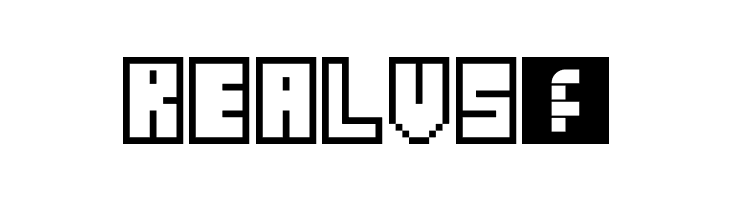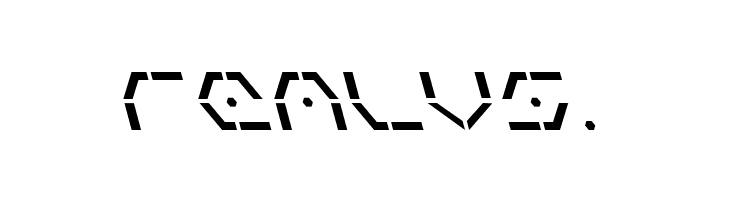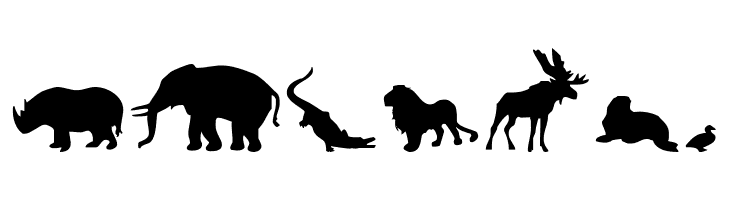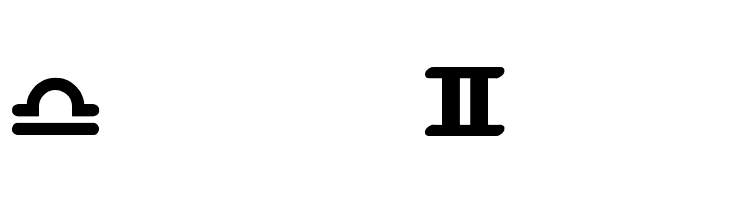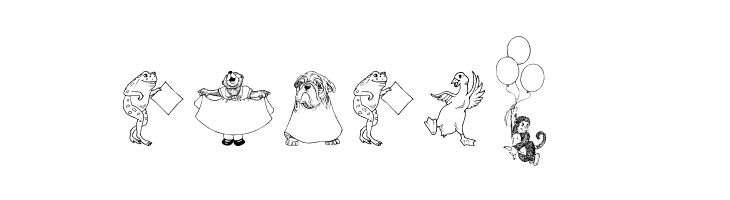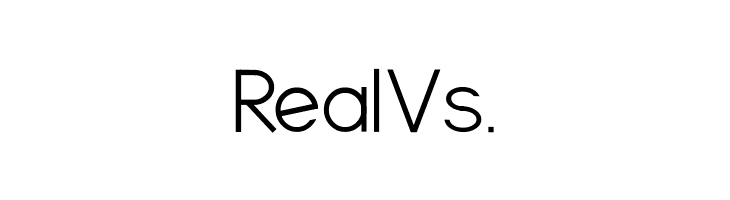
A bold, geometric font with a futuristic and digital aesthetic.
A futuristic, angular font with a tech-inspired, italic design.
A futuristic, geometric font with angular, segmented letterforms.
A bold, decorative symbol font with a scorpion motif.
Silhouetted animal shapes in a bold, uniform style.
A modern, geometric sans-serif font with rounded edges and uniform strokes.